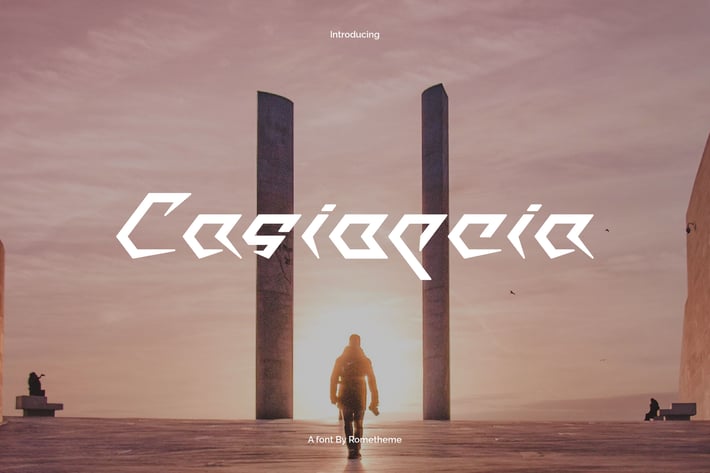
Casiopeia - Futuristic Font
Casiopeia is a modern and futuristic font, this font looks elegant, future, readable, stylish, catchy and easy to use.
Casiopeia Font is the best choice for your professional design projects, including : logo, poster design, t-shirt, headline, flyer, cd cover album, business card, branding, magazines, social media, advertisements, product designs, or something that need modern or futuristic looks.
- The perfect font choice for powerful projects - logo, poster design, t-shirt, headline, flyer, cd cover album, business card, branding, magazines, social media, advertisements, product designs.